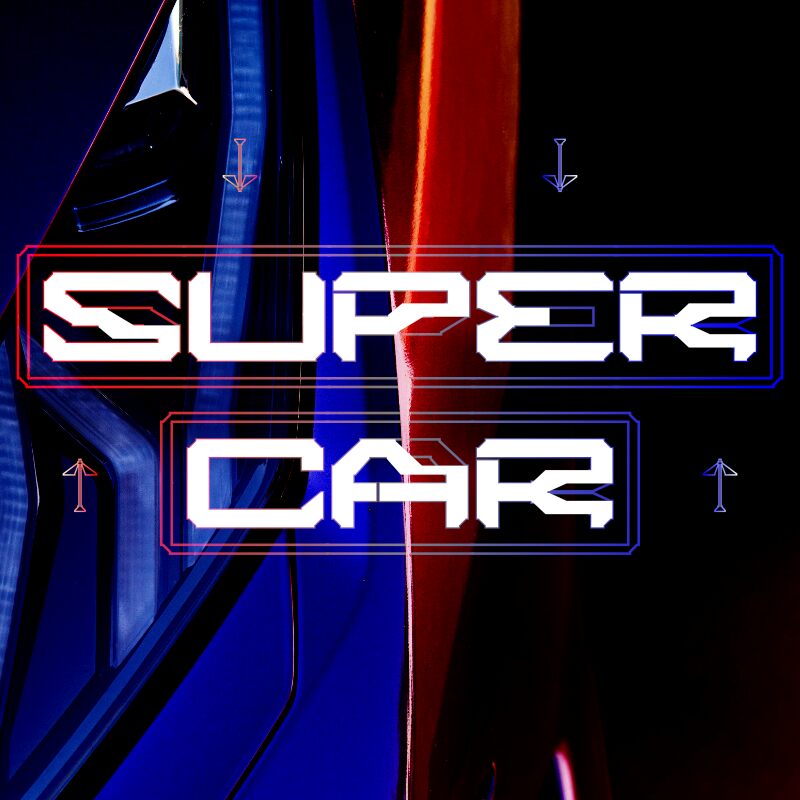
Super Car Exp ML, a creation by Greentrik6789, is a font that captures the essence of speed and modernity. With its futuristic style, this member of the Super Car family makes a bold statement on any canvas. The characters boast an expanded form that exudes confidence and impact, perfect for grabbing attention.
This display font finds its stride in design settings that call for a touch of the avant-garde. Think of branding for high-tech industries, posters for sci-fi movies, or titles in video game interfaces-anywhere that demands a font with presence and forward-thinking flair. Super Car Exp ML is not just typography; it's the embodiment of innovation and dynamism in letterform.
Präsentation und Schriftprobe von Super Car Exp ML Demo